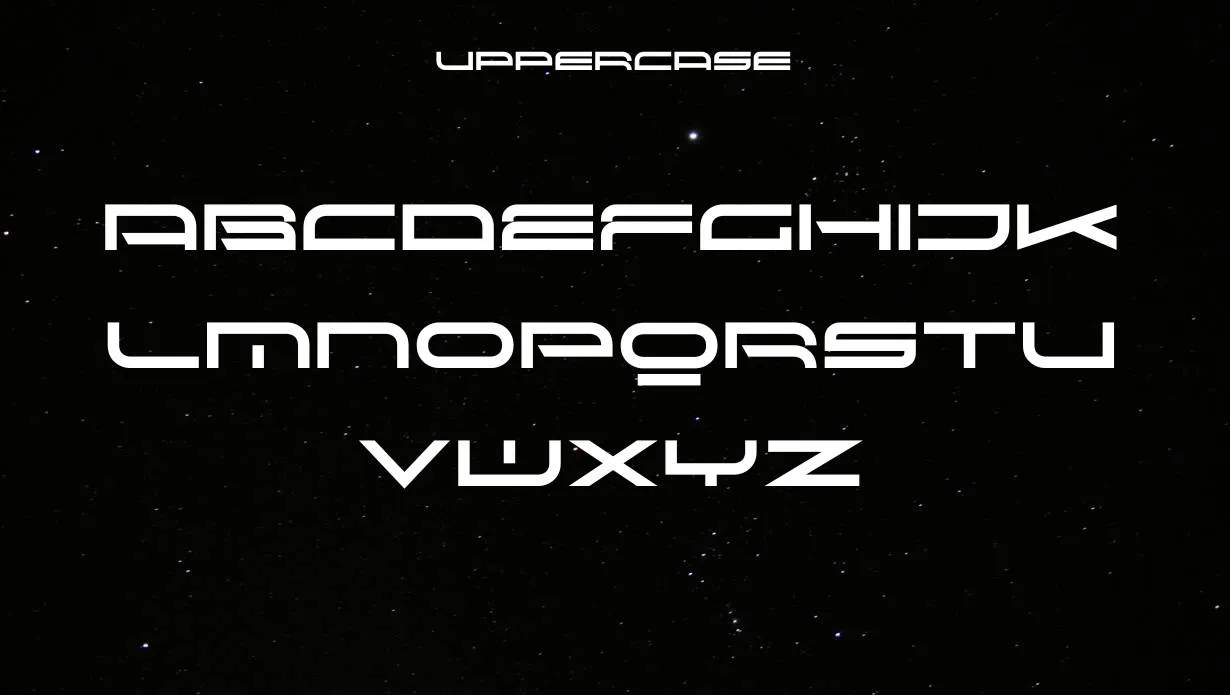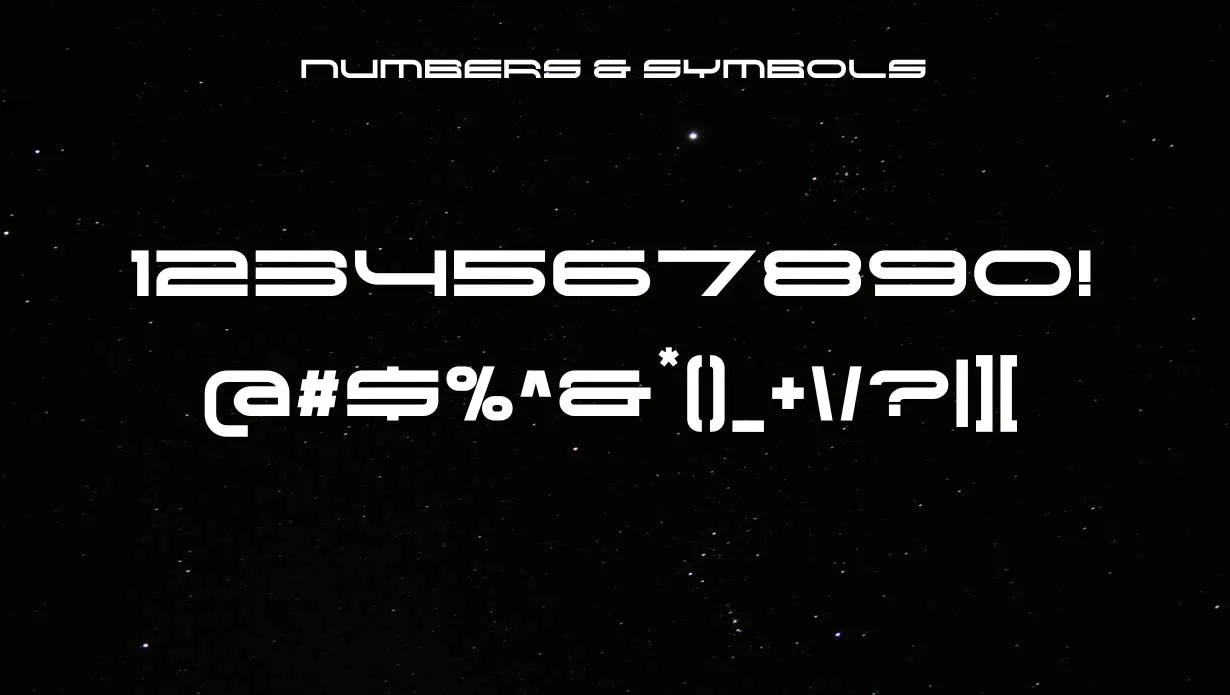
Red Seven Font is a distinctive typeface with a futuristic look, designed by renowned creator Dennis Ludlow and distributed by Shark Shock in 2016. It comes in TTF and OTF file formats, featuring a sleek and modern design that is ideal for techno and sci-fi projects.
This typeface also contains 316 characters in uppercase, lowercase, numbers, punctuations, etc. It also includes Basic Latin and Latin Extended-A with kerning, European accents, and diacritics.
| Name | Red Seven Font |
| Designer | Dennis Ludlow |
| Style | Techno |